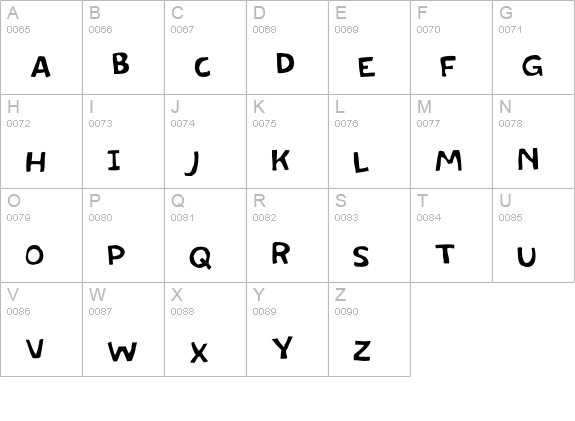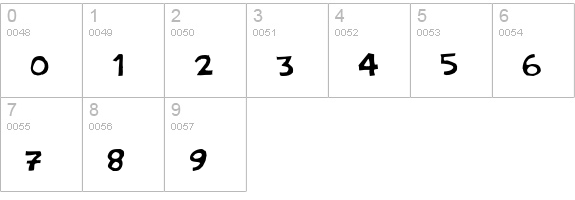
PFAmateur-FlatCool is a stylish and modern font that exudes a sense of casual coolness. With its clean lines and playful curves, this typeface is perfect for a variety of design projects, from branding to social media graphics. The PFAmateur-FlatCool font offers a unique blend of professionalism and creativity, making it a versatile choice for both personal and commercial use. What makes PFAmateur-FlatCool even more appealing is that it is available for free download at FontsMarket.com. This means that you can easily access this eye-catching font without any cost, allowing you to enhance your projects with a touch of sophistication without breaking the bank. Whether you're a designer looking to add a fresh twist to your work or a creative enthusiast exploring new typographic styles, PFAmateur-FlatCool is a must-have addition to your font collection. Download it today and elevate your designs with this freely available gem!